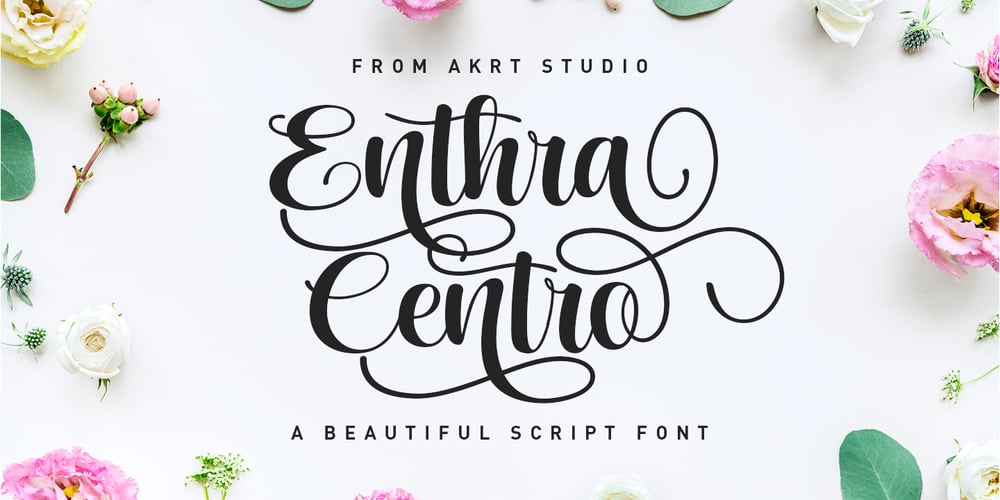
Enthra Centro Font Family was designed by Ak Mal and published by Akrtype Studio. Enthra Centro contains 1 styles and family package options. Enthra Centro script is an elegant combination of a script . It is slender, feminine and classy, while still maintaining a friendly feel.Enthra Centro script is versatile and will work perfectly for e-commerce brands, wedding boutiques, initial name cards or any business that wants to appear upscale and chic. With its many varian stylistic characterEnthra Centro script is perfect for creating original and functional designs. It has extensive language support and alternates, stylistic sets that add visual interest to every letter.You can use the Enthra Centro script for high-end logotypes and magazine headlines, but let’s not forget greeting cards, invitations, posters, ads and the various web and screen usages. The overall feel of the font is elegant, sophisticated with a touch of informal and it is ideal if you want to convey a sense of class and style.